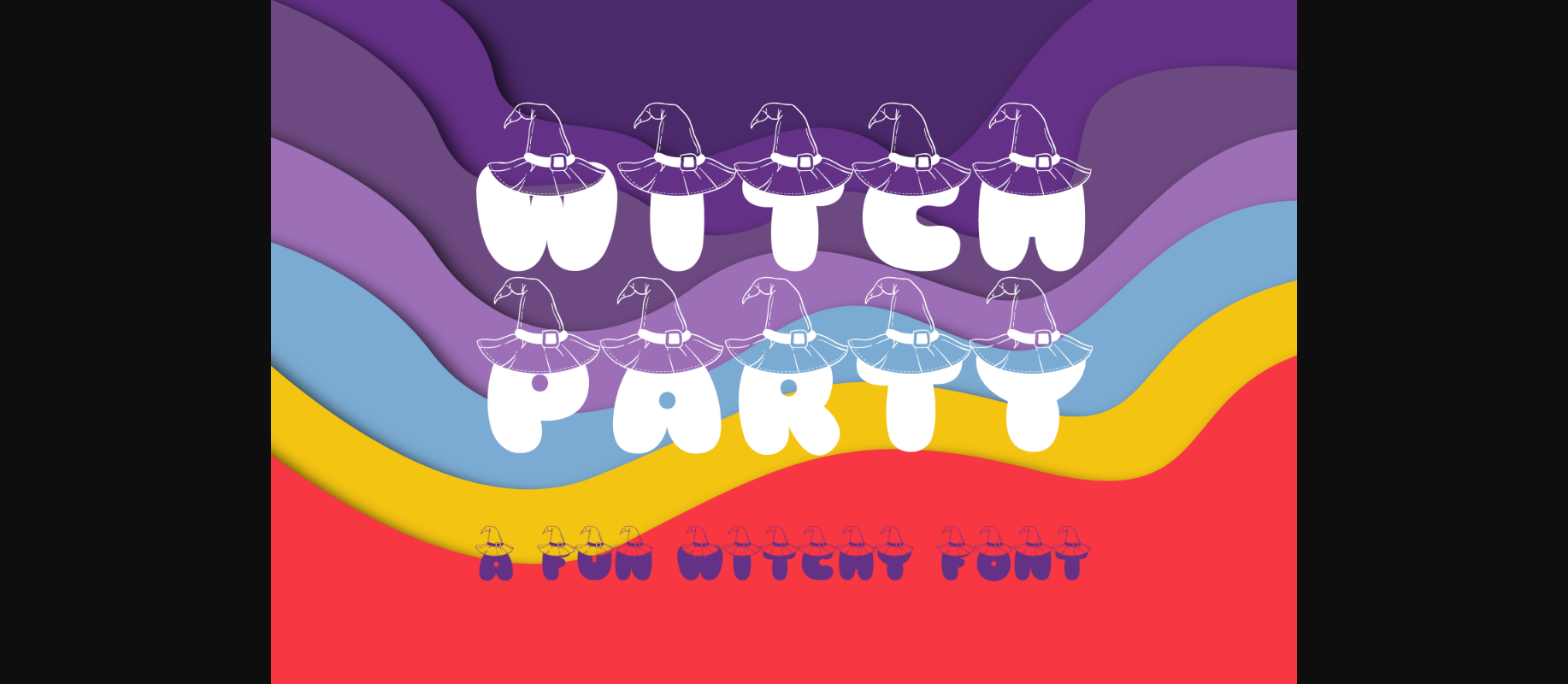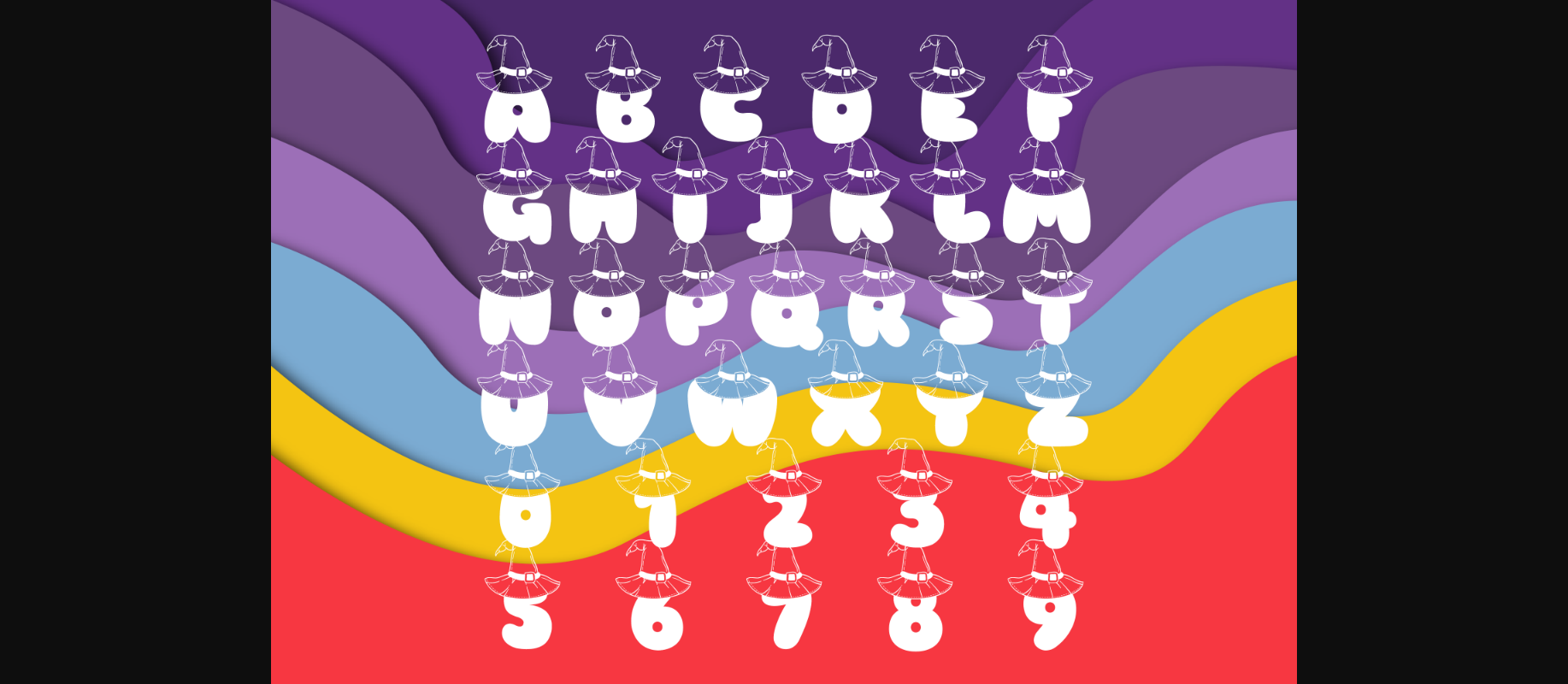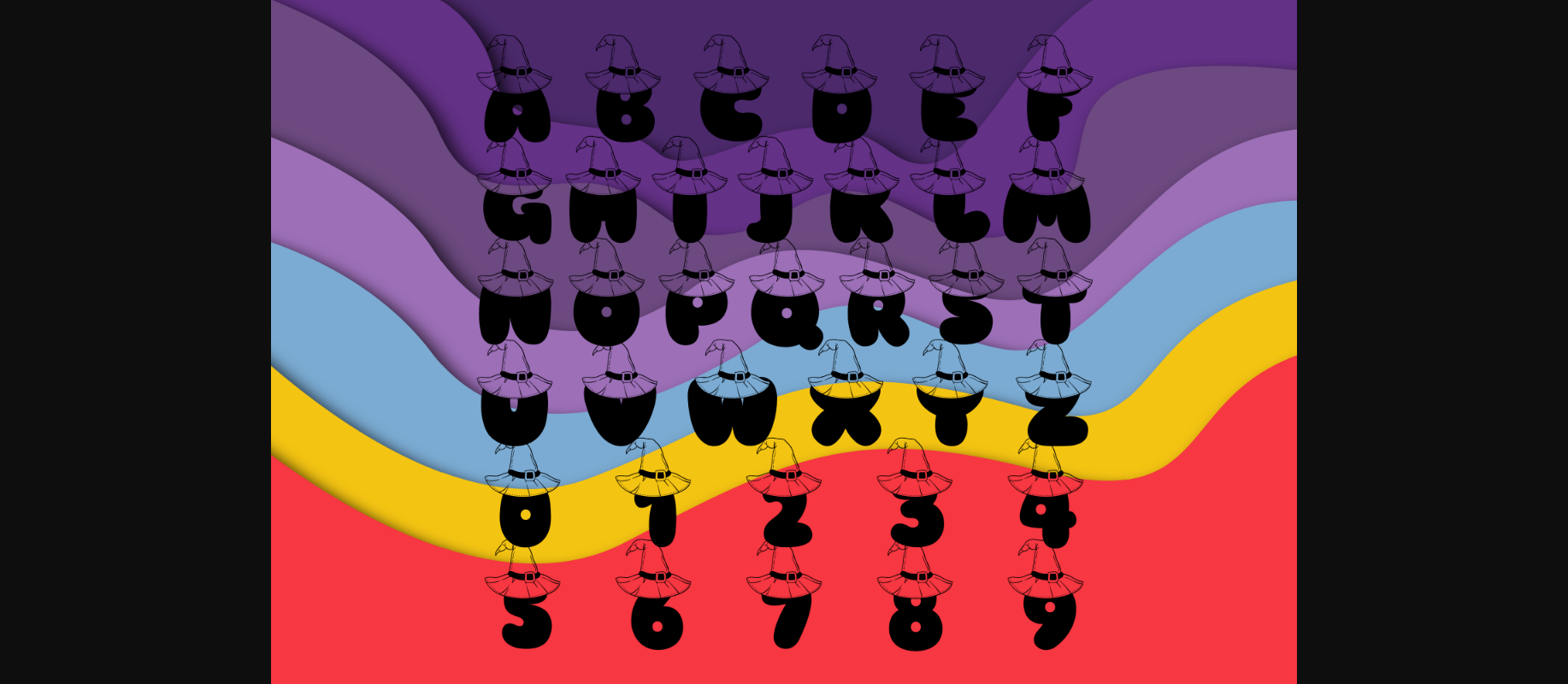
HomeDecorative FontsWitch Party Font Decorative Fonts Witch Party Font FacebookXPinterestWhatsApp 1 of 5 ... Witch Party Font Poster 2... Witch Party Font Poster 3... Witch Party Font Poster 4... Witch Party Font Poster 5... About Witch Party Font Witch Party is an incredibly cool and quirky decorative font. Whether you use it for cartoon-related designs, children’s games, or just any creation that requires a lovely touch, this font will be an amazing choice. DOWNLOAD NOW People also explored Wondertime Font Head Hunter Font Phenom Mouse Font Jelly Lelly Font Black Magic Font Casterdam Baletica Font Heart Monogram Font Ahkio Berthusen Font 414 0 TagsWitch Party Font Previous articleHoneybee FontNext articleSpooky Tree Font LEAVE A REPLY Cancel reply Comment: Please enter your comment! Name:* Please enter your name here Email:* You have entered an incorrect email address! Please enter your email address here Website: Save my name, email, and website in this browser for the next time I comment. Personal Use Free Proudly Personal Use Free Read more about this font Shkoder 1989 Personal Use Free Read more about this font Wadjet Personal Use Free Read more about this font Glosery Personal Use Free Read more about this font BLOG 5 Fonts That Will Dominate Design Trends in 2026 5 Fonts for 2026 That Will Dominate Design Trends Typography plays a critical role in visual communication, and as we look ahead to 2026, it’s... Best Fonts for YouTube Videos: Make Your Thumbnails Stand Out To increase your work productivity, choose the most readable fonts. Elegant Wedding Invitation Fonts – Handwritten & Script Fonts